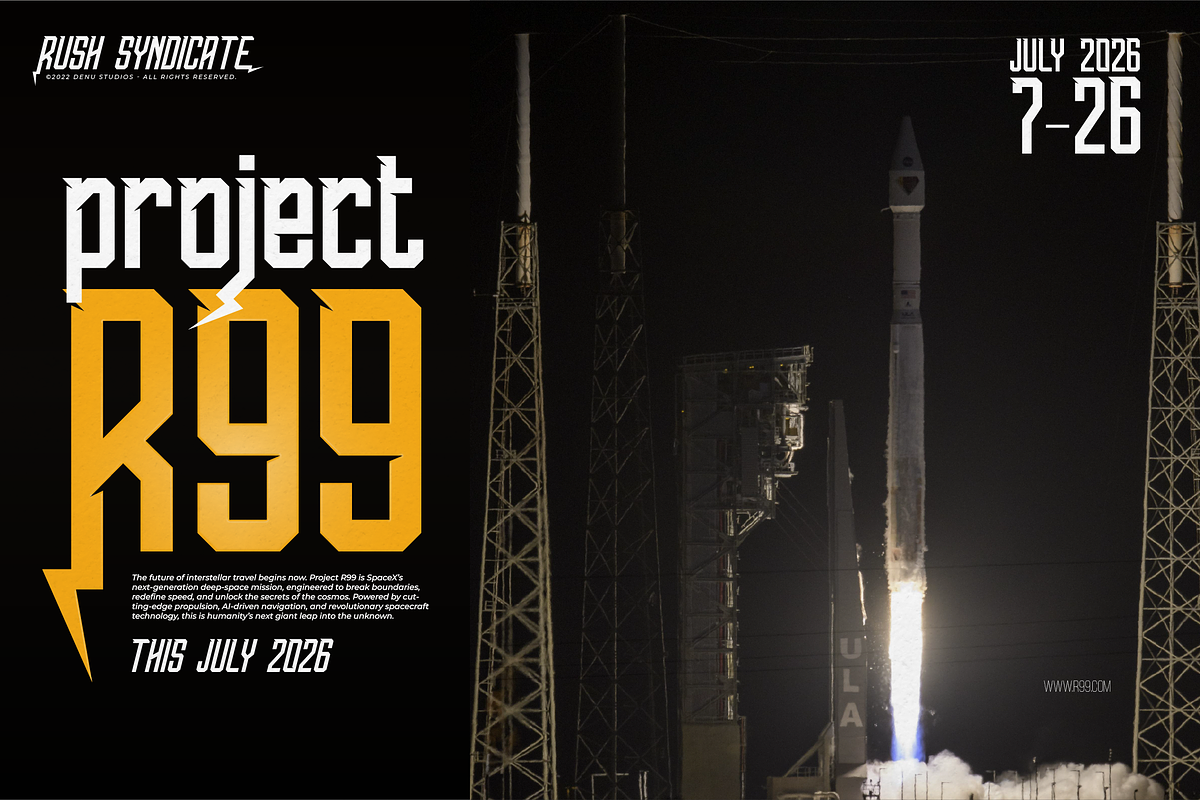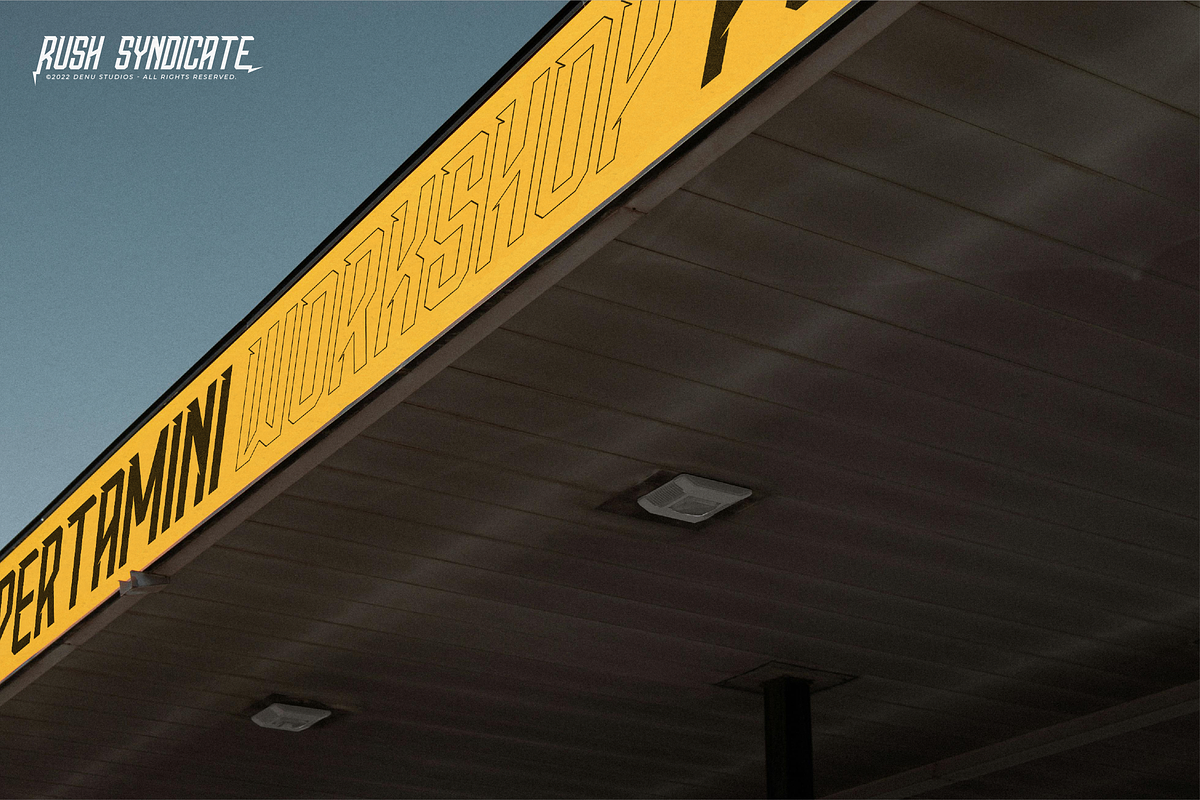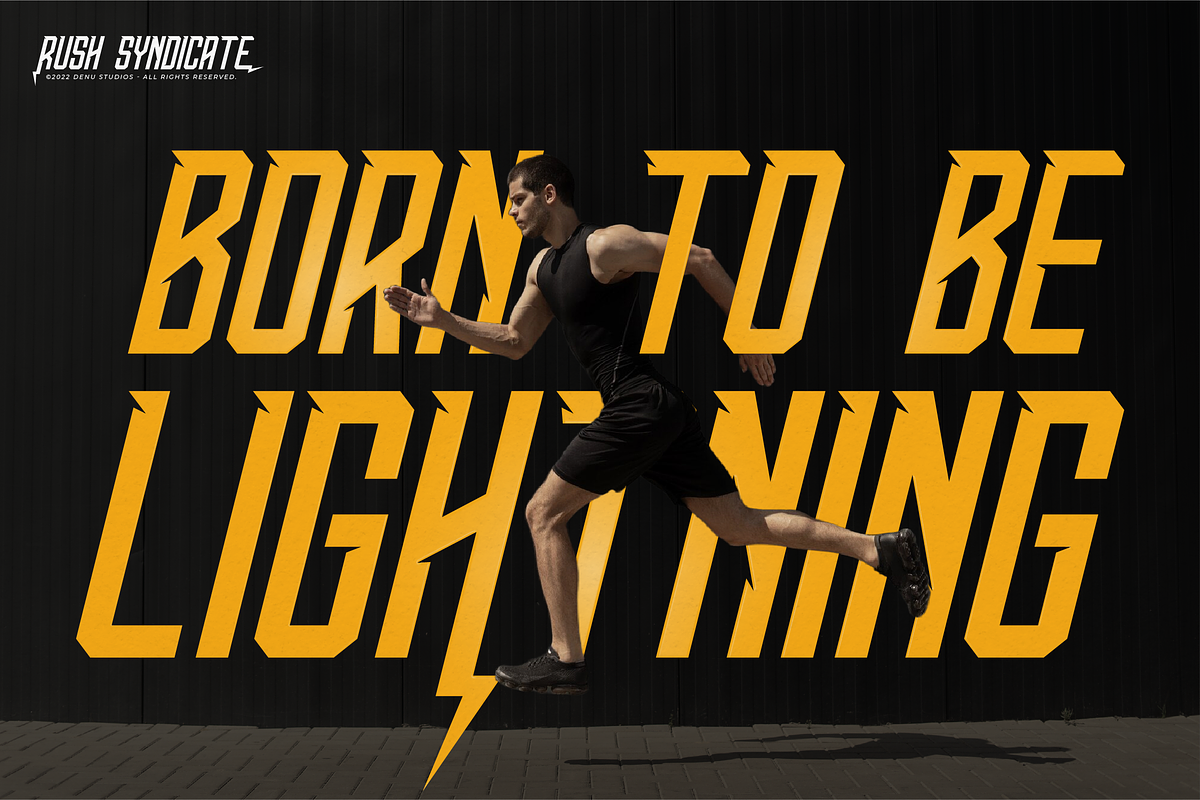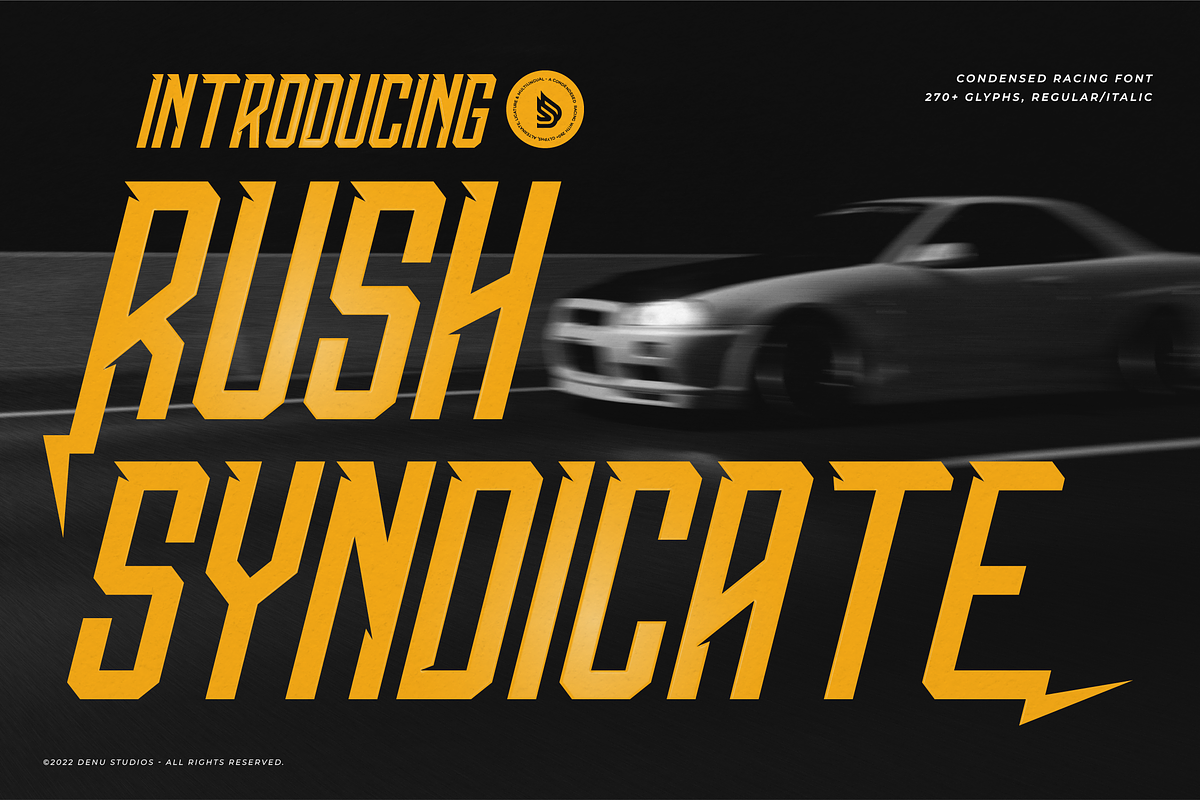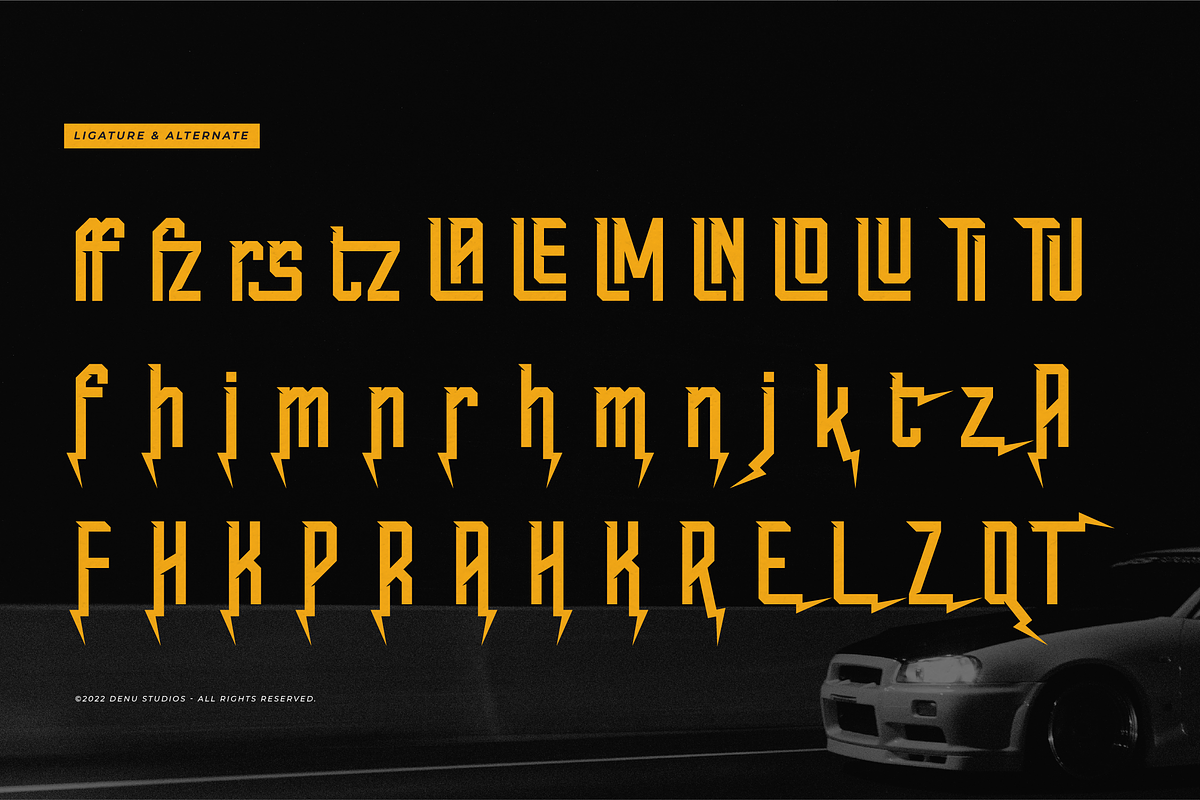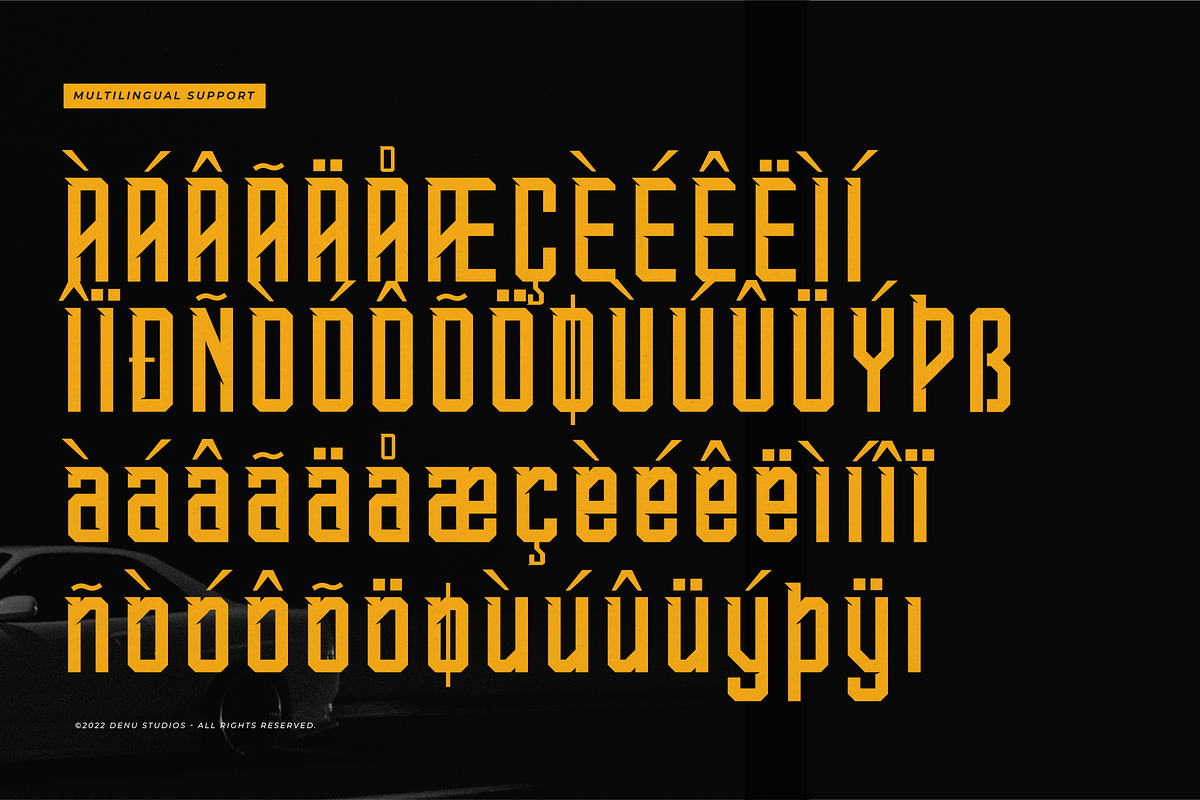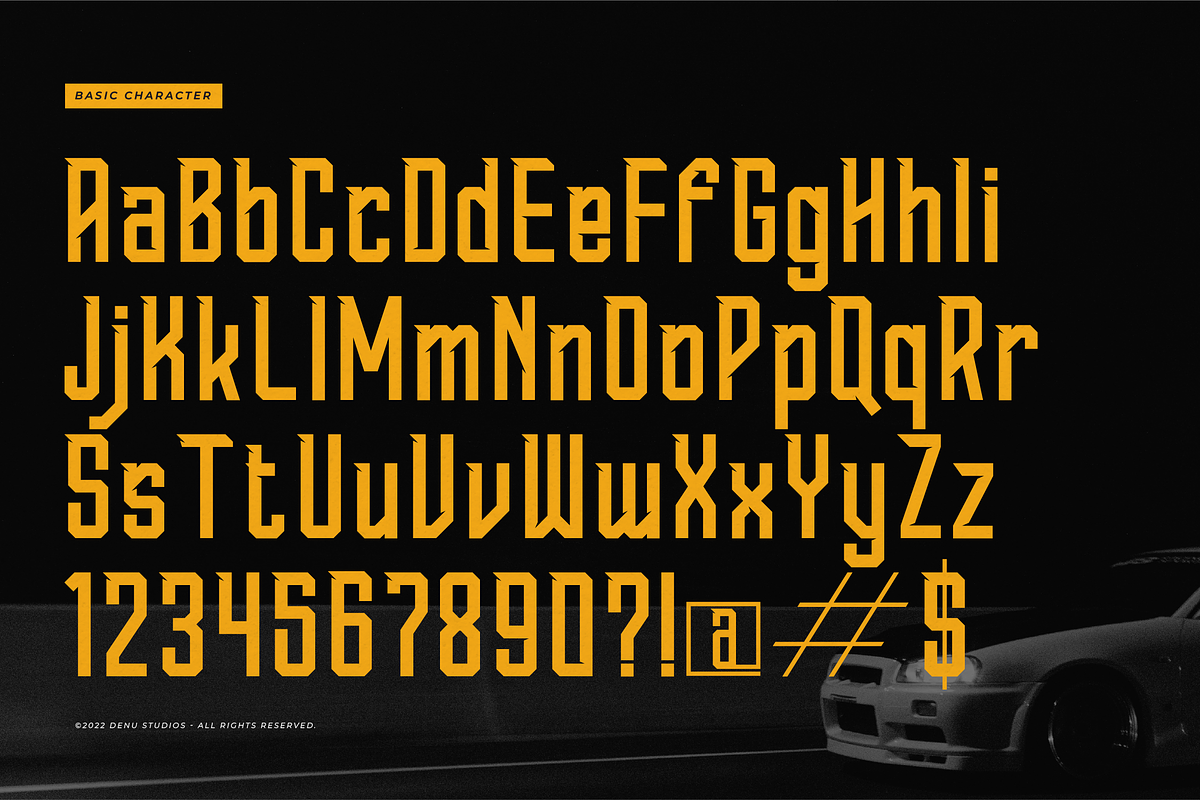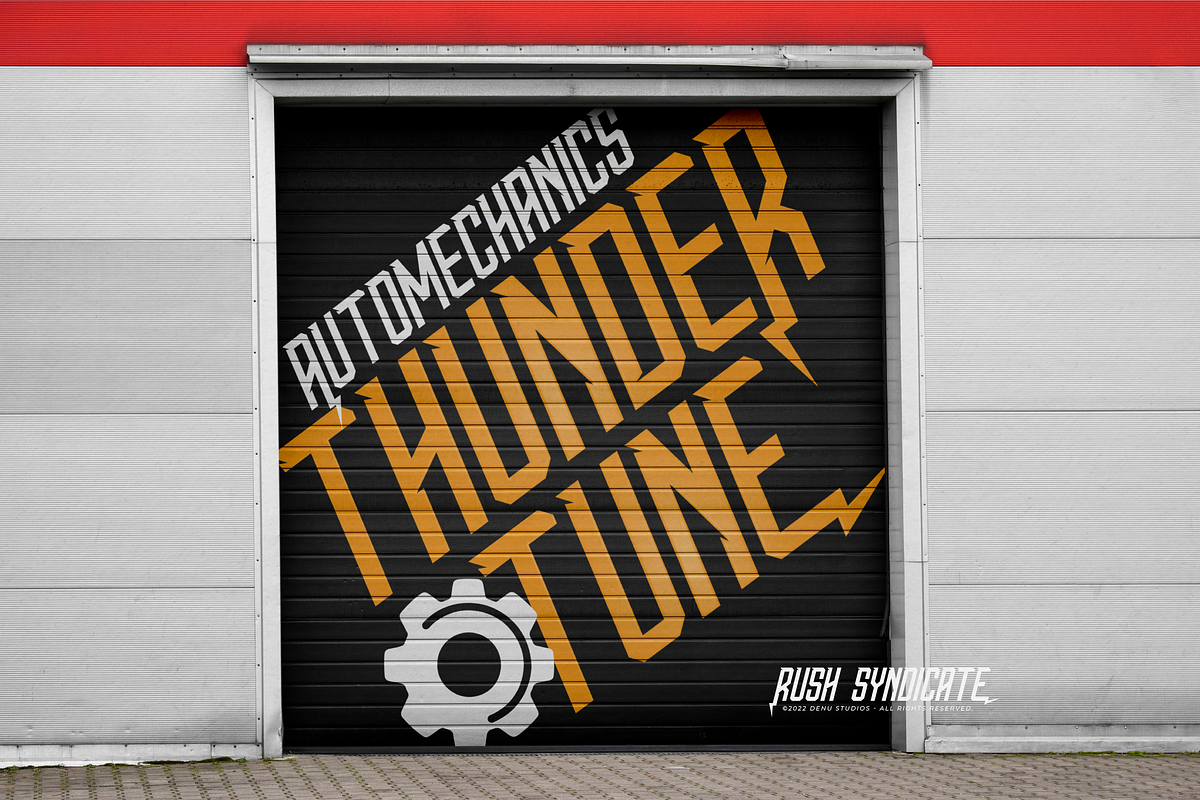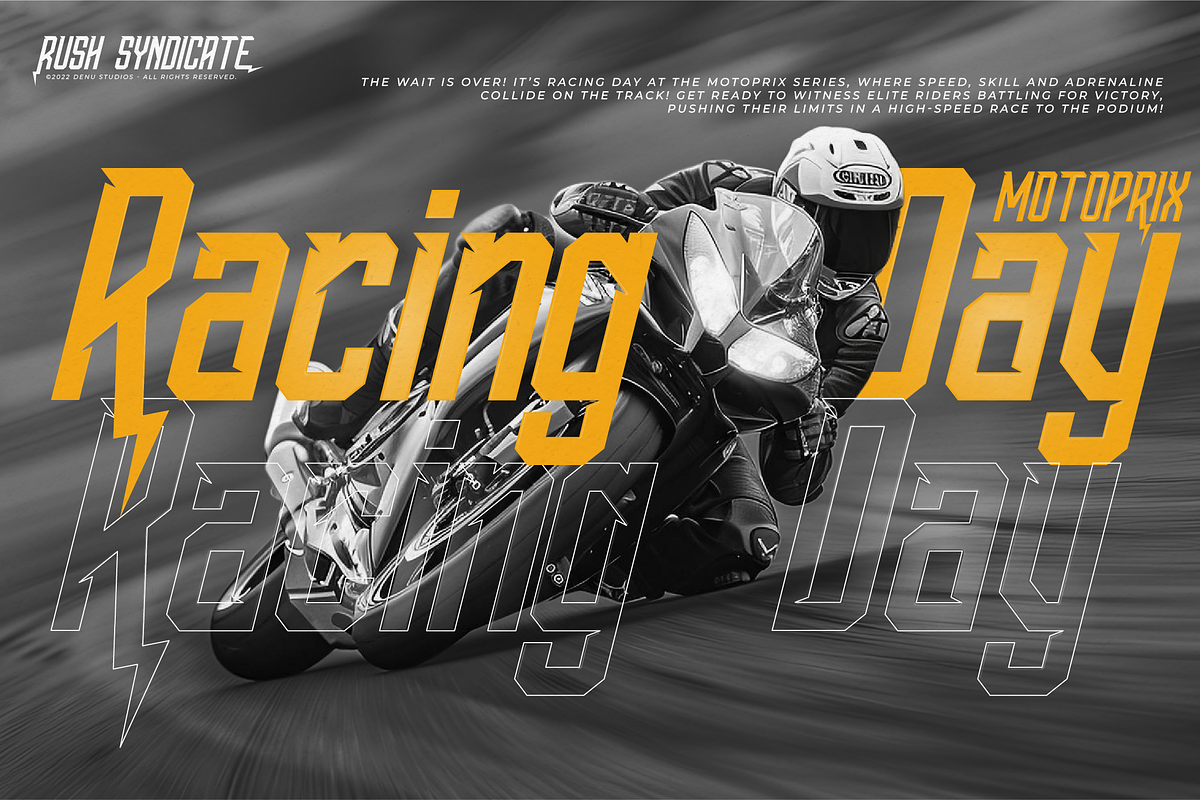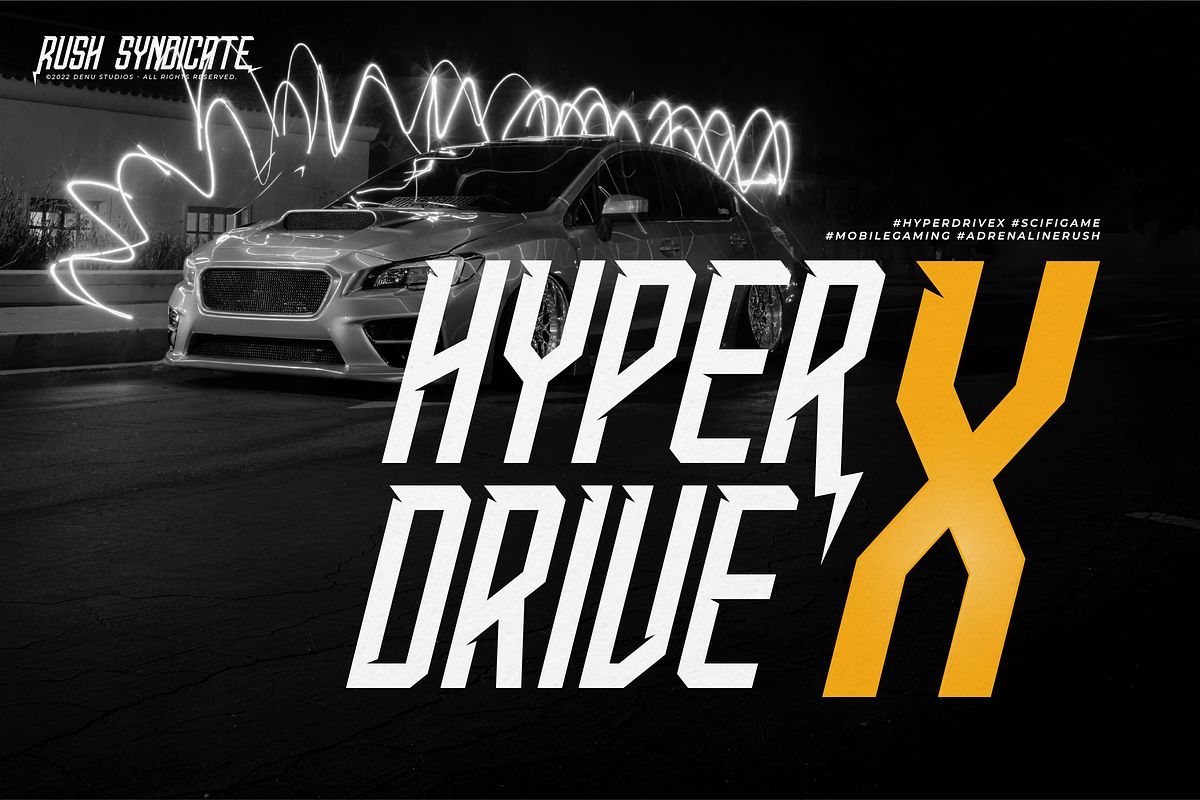
Rush Syndicate | Condensed Racing
Rush Syndicate | Condensed Racing Font, from Denustudios, suitable for any projects such as: logos, branding projects, homeware designs, product packaging, mugs, quotes, posters, shopping bags, t-shirts, book covers, name card, invitation cards, greeting cards, label, photography, watermark, special events, and all your other lovely projects that need a Condensed Racing Font taste.